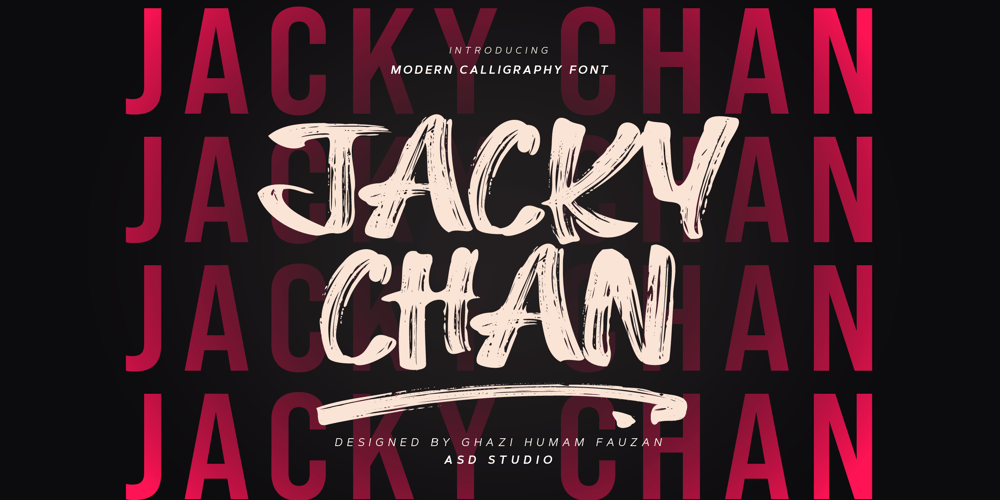
Jacky Chan Font Family was designed by Ghazi and published by Asd Studio. Jacky Chan contains 2 styles and family package options. Introducing, Jacky Chan – Brush Font Jacky Chan font preserves all the high definition detail of the original handwritten letters. This font it truly looks realistic. Take your design to the up level with a hyper-realistic font that truly looks hand painted. Jacky Chan uses feature Bitmap Trace in Inkscape that makes way for more authentic looking fonts and is sure to grab the attention of customers and designers alike. Jacky Chan installs like any other font, and can be used in any color, on any background. What’s Included?:: Uppercase & Lowercase (Regular and Italic Version):: Numbers & Punctuation: Swashes Ligature:: Multilingual SupportEnjoy our font, thank you.